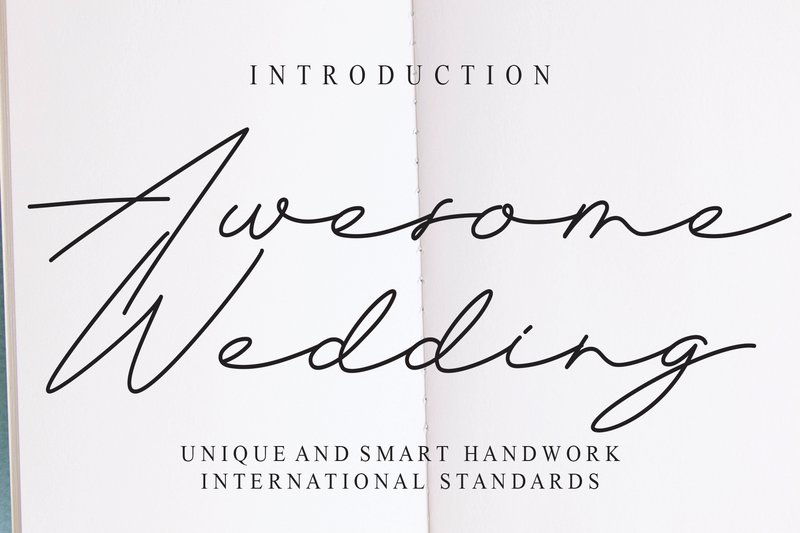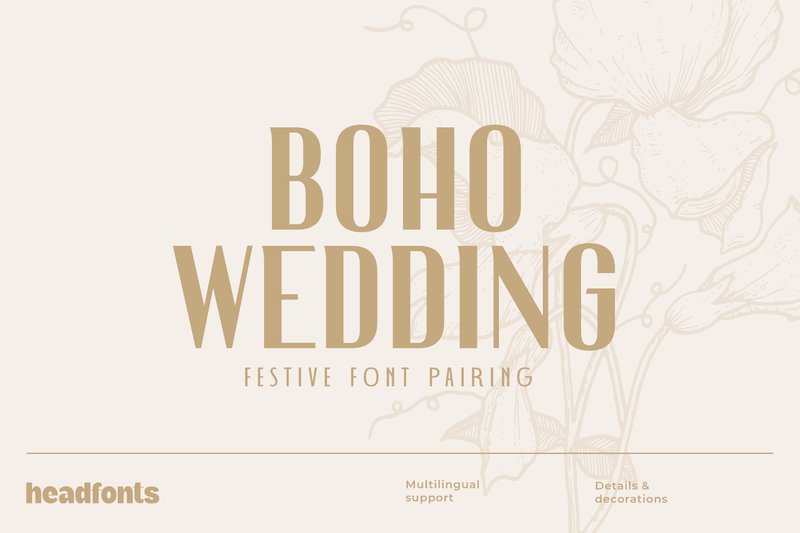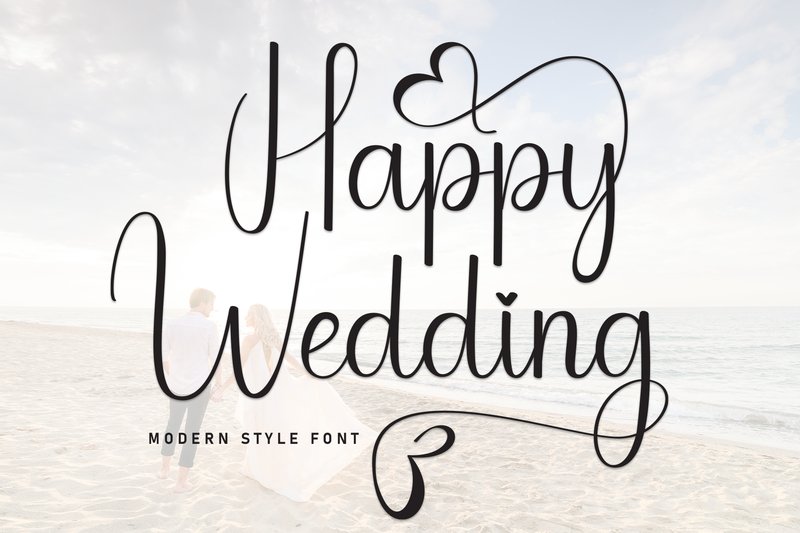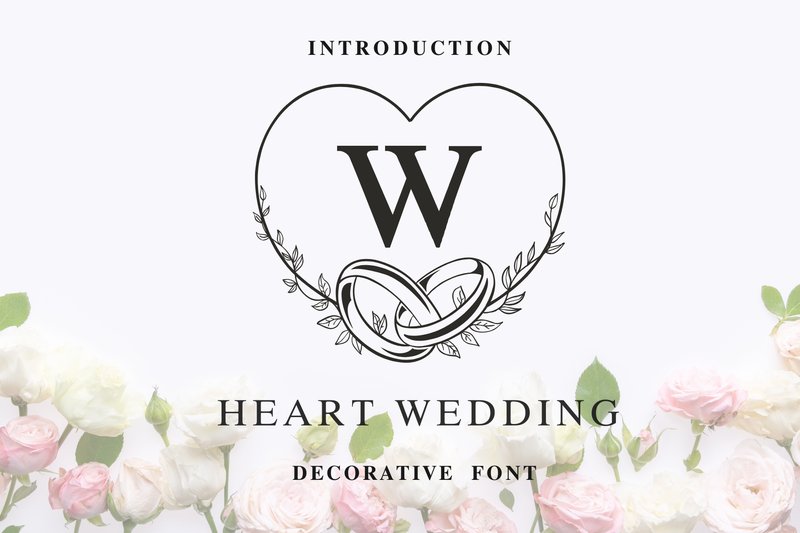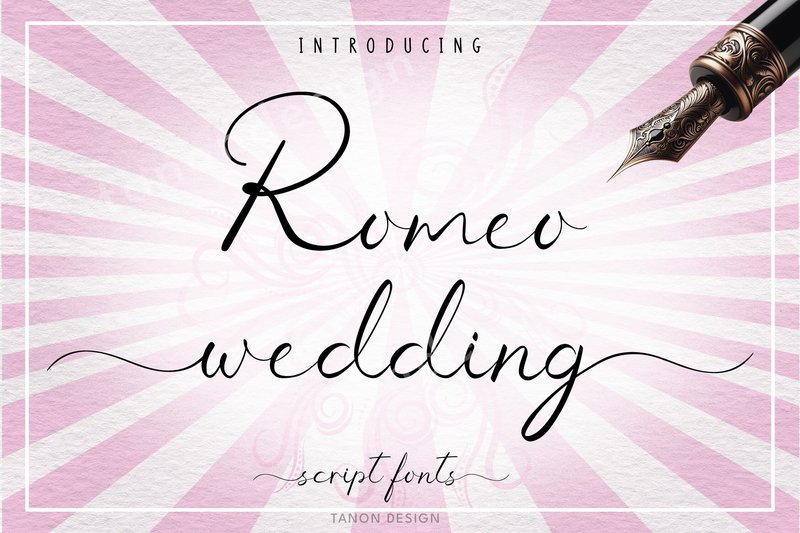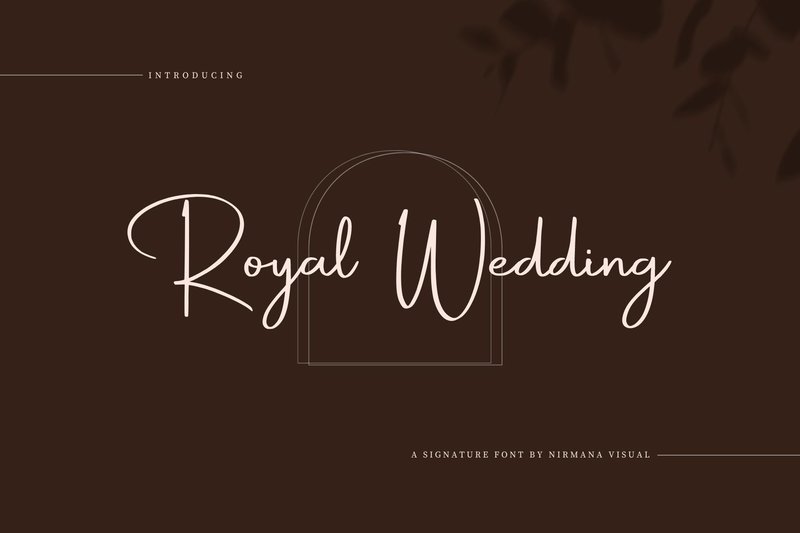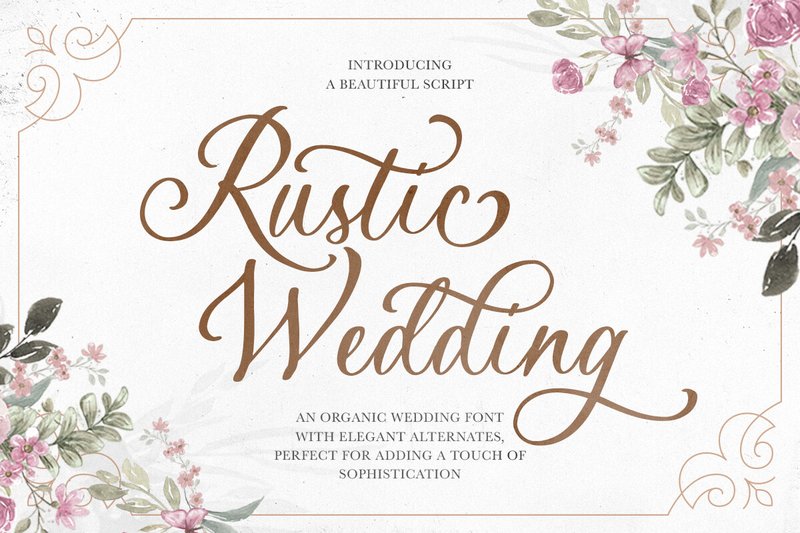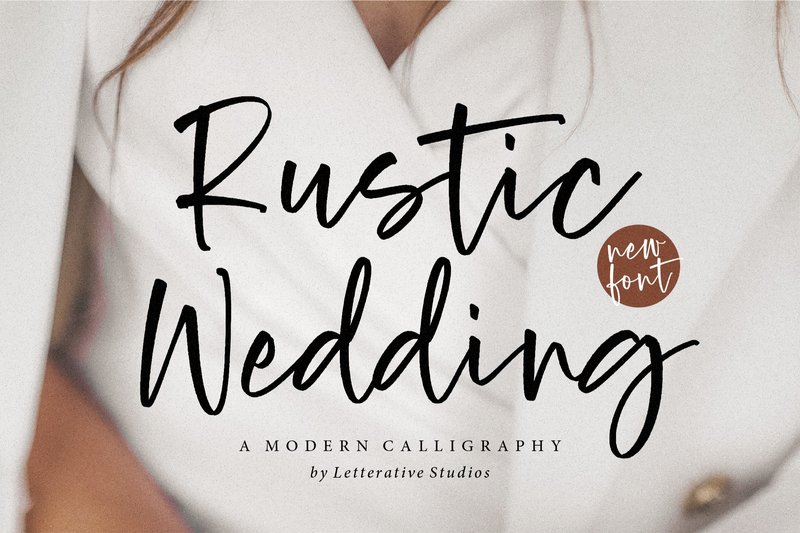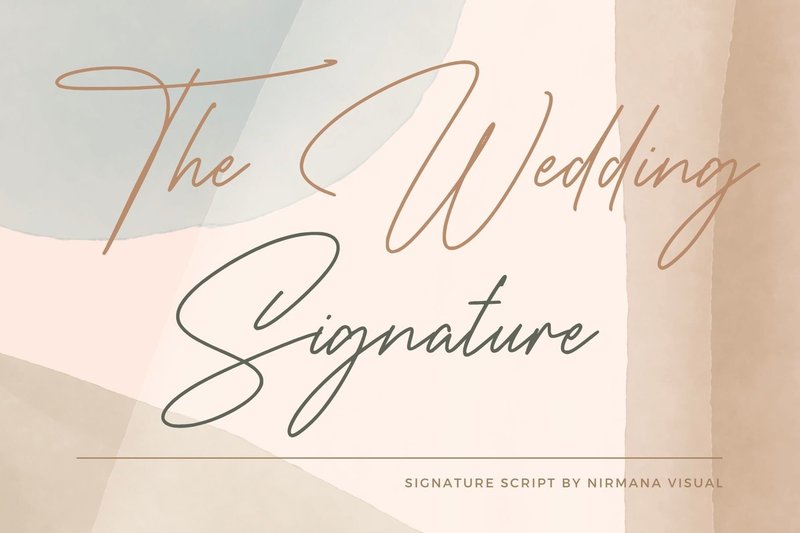
💍 The 33 Most Breathtaking Wedding Fonts for 2026
As we move through 2026, the trend in wedding design is all about deep personalization and modern elegance. The perfect font is no longer just a detail; it’s the cornerstone of your wedding’s aesthetic, setting the tone from the first save-the-date to the final thank you card. It’s the element that ties your entire vision together. To help you create an unforgettable celebration, we’ve curated this collection of 33 of the most popular and versatile wedding fonts available today. These trending typefaces are perfect for DIY brides and professional designers aiming for a truly bespoke look.
1. Happy Wedding (by william jhordy)
Happy Wedding (by william jhordy)
Happy Wedding (by william jhordy) feels less like a typeface and more like the genuine, joyful handwriting of a close friend penning a celebratory note. This sweet and friendly display font brings an irresistible charm to any design, with rounded, playful letterforms that dance across the page. It’s the perfect choice for modern couples who want their wedding stationery to feel personal, approachable, and full of warmth, sidestepping formal calligraphy for something much more fun and heartfelt.
• Sweet, organic handwritten style
• Playful and rounded character set
• Friendly and approachable personality
• Optimized for display and headline use
• Wedding invitations, save-the-dates, and RSVP cards
• Bridal shower and bachelorette party stationery
• Thank you notes and personalized greeting cards
• Cute branding and social media graphics for events
2. Wedding Flowers (by Eddygoodboy)
Wedding Flowers (by Eddygoodboy)
Wedding Flowers (by Eddygoodboy) feels like watching silk ribbons dance in a soft breeze. This font carries an air of effortless romance, with characters that gracefully dip and rise along an organic baseline, creating a rhythm that is both luxurious and deeply personal. It’s the perfect choice for designs that need to communicate heartfelt elegance with a fresh, contemporary touch, turning simple text into a delicate work of art.
• Elegant, flowing letterforms with smooth, natural connections.
• A dynamic and charming baseline that mimics authentic handwriting.
• A delicate weight that imparts a feeling of luxury and refinement.
• A complete set of uppercase, lowercase, and numeral characters.
• Timeless wedding invitation suites, place cards, and menus.
• Signature logos and branding for boutique florists, photographers, and event planners.
• Feminine packaging, high-end product labels, and sophisticated stationery.
• Romantic headlines and quotes for social media and editorial design.
3. Royal Wedding (by Sigit Dwipa)
Royal Wedding (by Sigit Dwipa)
Royal Wedding (by Sigit Dwipa) trades stiff, overly formal scripts for a fresh and personal touch of handwritten elegance. This font brings a feeling of intimate, bespoke luxury to any design, with flowing letterforms that dance across the page. It’s the perfect balance of classic romance and modern sensibility, ensuring your wedding materials feel both timeless and uniquely current. Sigit Dwipa has crafted a typeface that feels less like a digital asset and more like a piece of custom calligraphy, ready to elevate everything it touches.
• Graceful uppercase and lowercase letter sets
• A full suite of stylistic alternates and ligatures for a custom look
• Elegant swashes to add a flourish to beginnings and endings
• Comprehensive multilingual support
• Invitation suites, save-the-dates, and RSVP cards
• Creating a sophisticated brand identity for wedding planners and photographers
• Elegant day-of stationery like menus, place cards, and welcome signs
• Personalized monograms and logos for the happy couple
4. Wedding Day (by Artkenza)
Wedding Day (by Artkenza)
Wedding Day (by Artkenza) If you are looking for a font that personifies timeless devotion, your search ends here. This captivating script transforms ordinary words into extraordinary emotions with its gracefully designed, delicate letterforms. Its every stroke speaks of beauty and sentimentality, delivering the tender and indulgent touch needed to elevate designs from simple text to a heartfelt statement. Wedding Day is the embodiment of sincere elegance, making it an indispensable asset for creatives aiming to communicate love and devotion with authentic grace.
• Captivating script style with delicate, flowing letterforms
• Graceful strokes that create an authentic, hand-lettered feel
• PUA encoded for effortless access to all alternate characters and swashes
• Designing complete wedding stationery suites, from invitations to place cards
• Crafting romantic branding for photographers, event planners, and boutique brands
• Adding a touch of sincere elegance to heartfelt letters, quotes, and social media graphics
5. Elegant Wedding Monogram (by Mantype Jaya)
Choosing the right typeface is a crucial step in crafting a cohesive and beautiful wedding story. This selection of 33 trending fonts offers something for every style, ensuring your invitations and decor will be as memorable as the day itself. Find the perfect match and start designing your dream wedding.